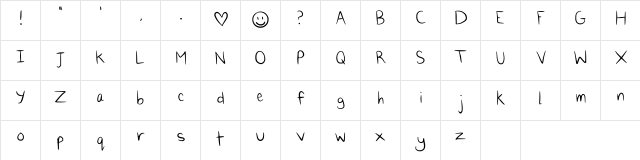
Normalcomicfont Regular
Design Context for Normalcomicfont Typeface
Normalcomicfont trades formality for fun, with bouncy, characterful letterforms that bring warmth and energy to any project.
Font Pairing: Pairs well with a rounded or humanist sans for body copy, maintaining the friendly tone without relying on Normalcomicfont to carry extended reading.
Pro Tip: Avoid using Normalcomicfont for long passages of text — it works best for headlines, labels, and short calls to action.